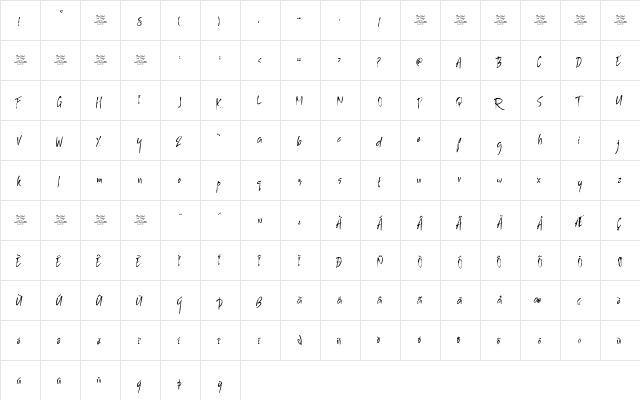
Blombanc Script Personal Use Regular
| Foundry | Tama Putra |
| Designer | Tama Putra |
Design Context for Blombanc Script Personal Use Typeface
Blombanc Script Personal Use brings a calligraphic fluidity to the page — its connecting strokes and expressive curves give it an unmistakably human quality.
Font Pairing: Combine Blombanc Script Personal Use with a simple geometric sans for maximum contrast — the tension between flowing curves and clean structure is a classic typographic pairing.
Pro Tip: Pair Blombanc Script Personal Use with a clean sans-serif for supporting text. The contrast between fluid script and geometric structure creates an elegant typographic hierarchy.